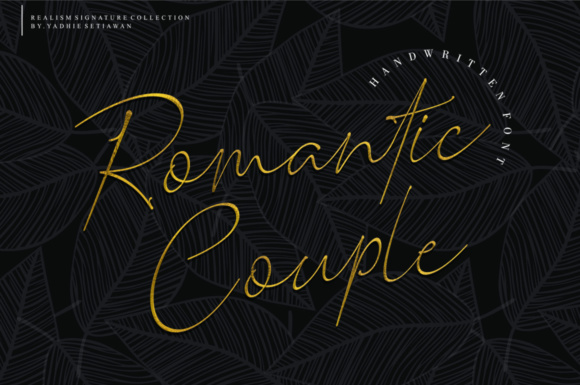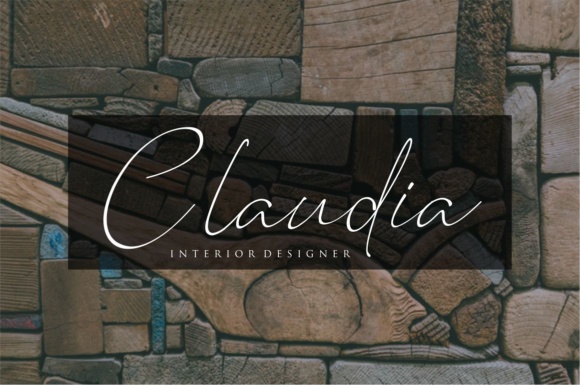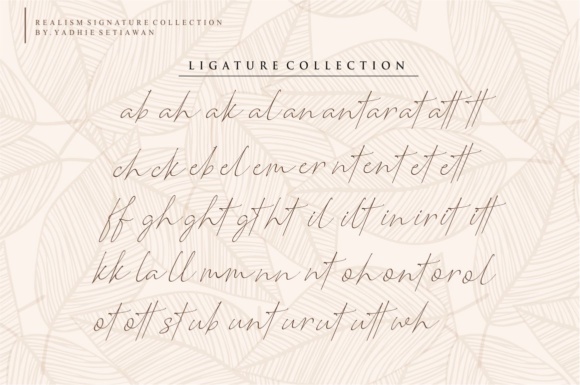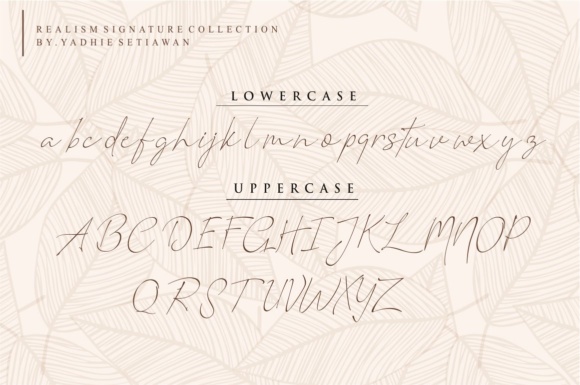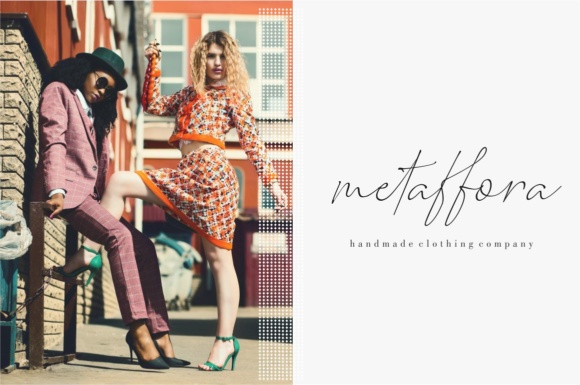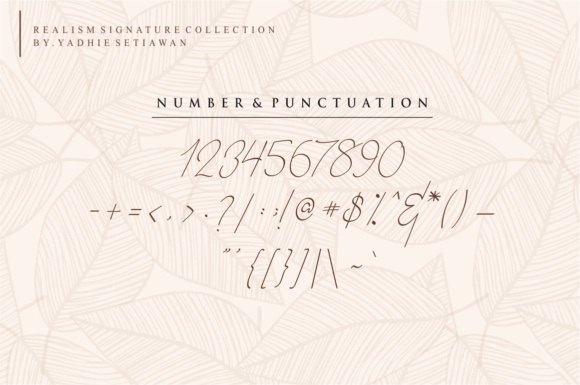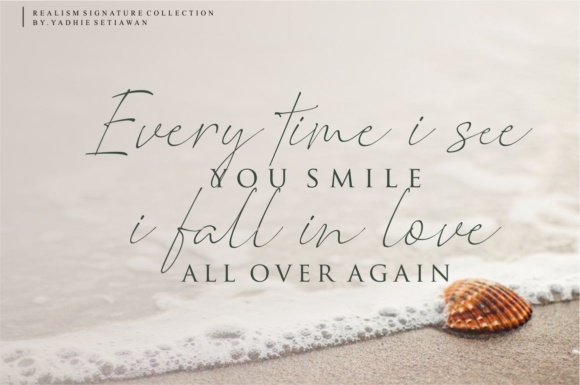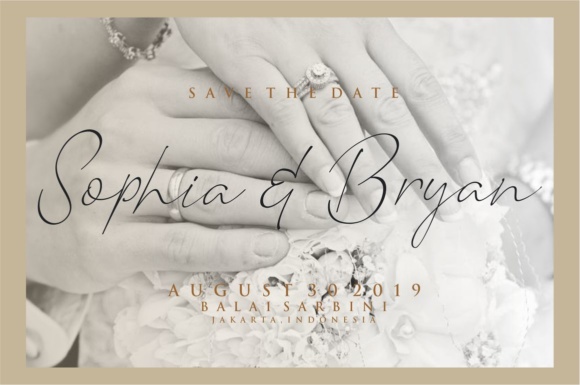
Romantic Couple Font
About Romantic Couple Font
The Romantic Couple is the latest and most amazing realistic signature font, designed to create beautiful typography and lettering.
It looks beautiful when used for logos, letterheads, branding, magazines, name cards, wedding invitations, and much more!